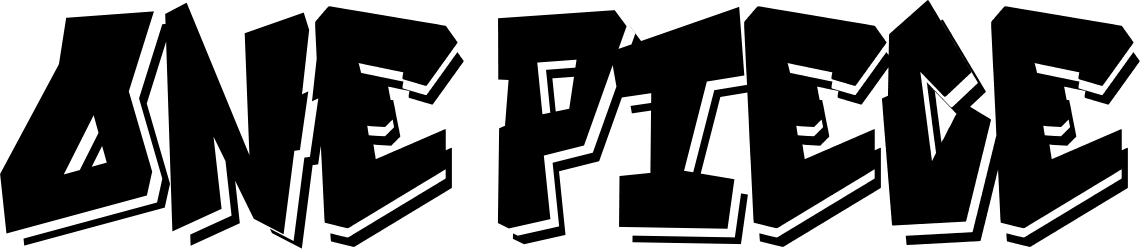
One Piece Font
One Piece is a comical-style graffiti font that has an animated design! This font offers fun, exciting, and 3D-style characters that are illustrated with an urban, informal, and friendly vibe. Download and utilize it for interesting typography that’s decorative.
To verify One Piece font only contains 2 sets of capitalized alphabets while it doesn’t include any lowercase letters, numbers, or punctuations. T-shirts, flyers, websites, logos, and greeting cards are a few places to consider including this font.